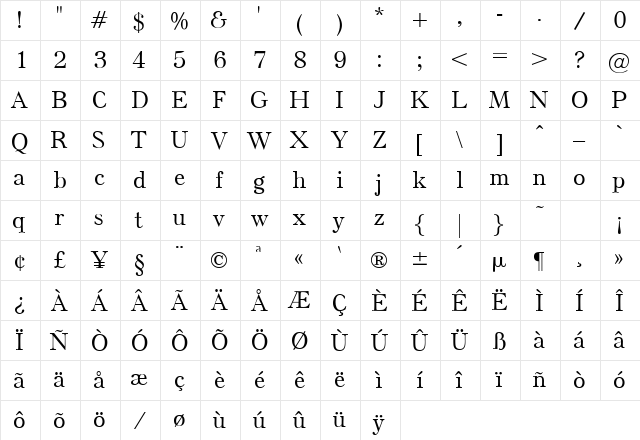
Epworth Regular Font Preview
Epworth Regular
Design Context for Epworth Typeface
Epworth offers clean, dependable letterforms without strong stylistic allegiance, making it a practical choice for designers who need flexibility.